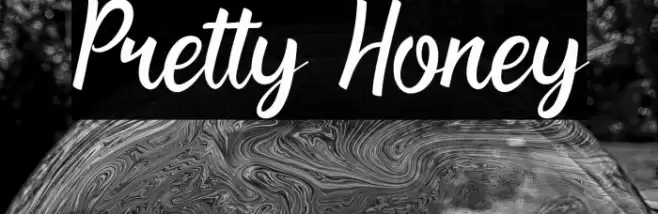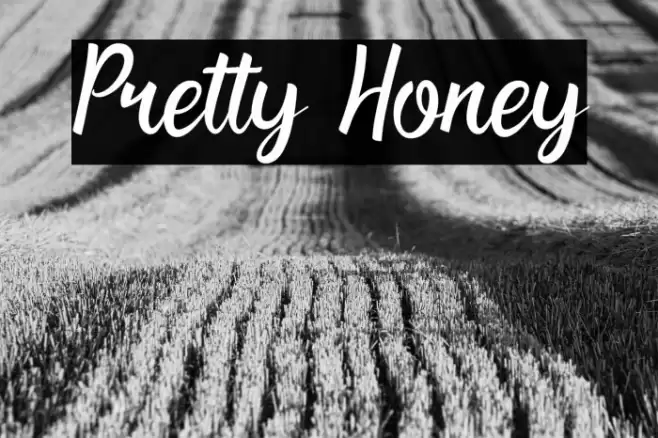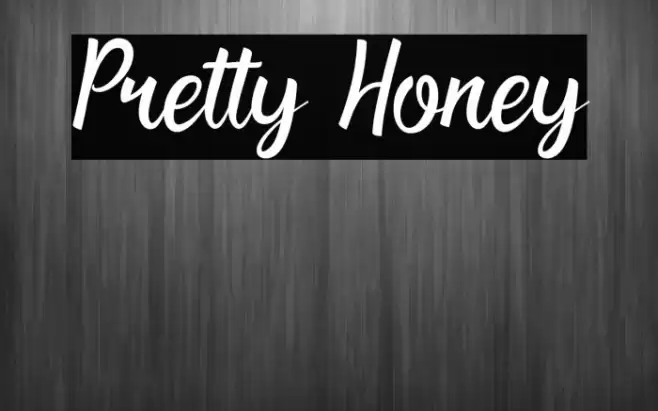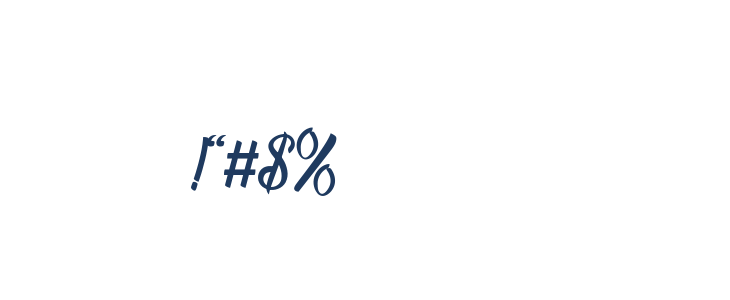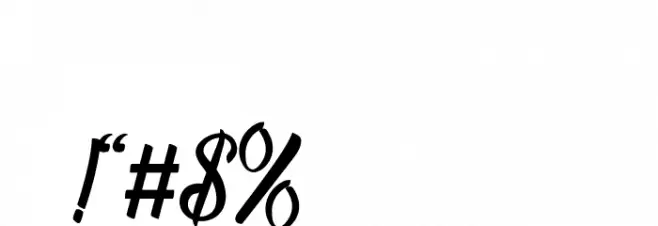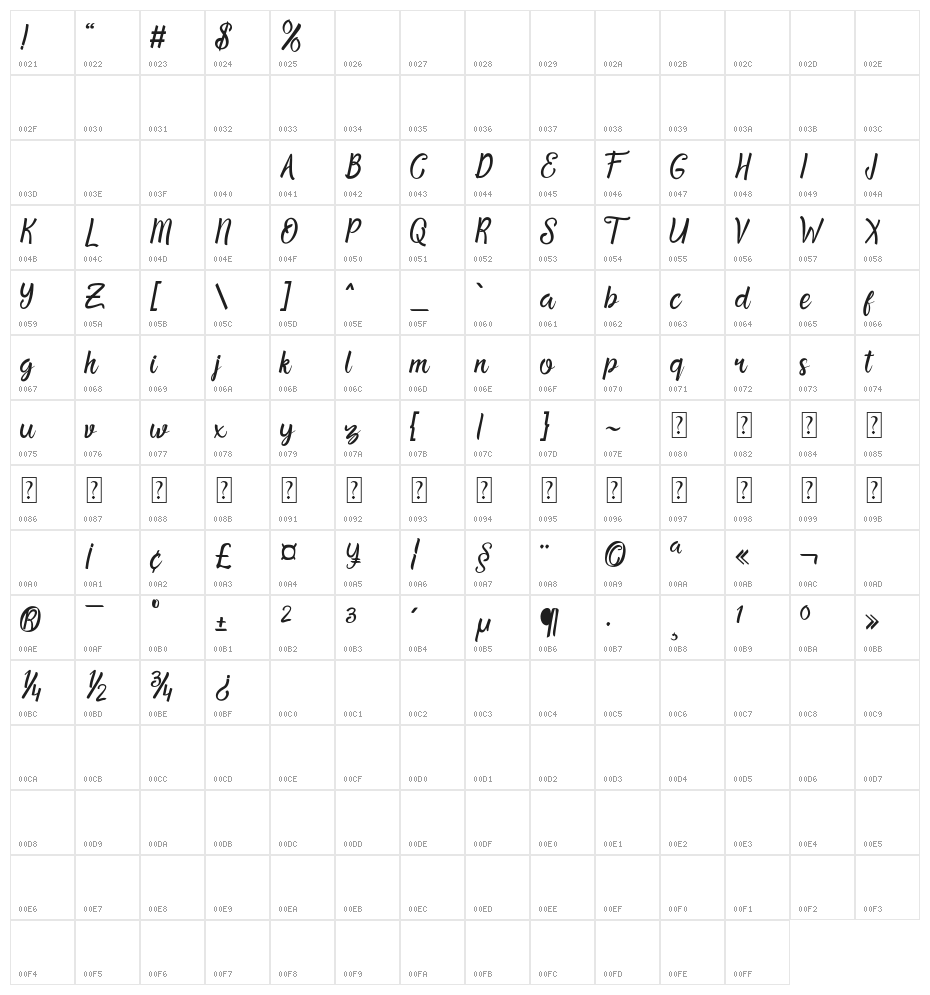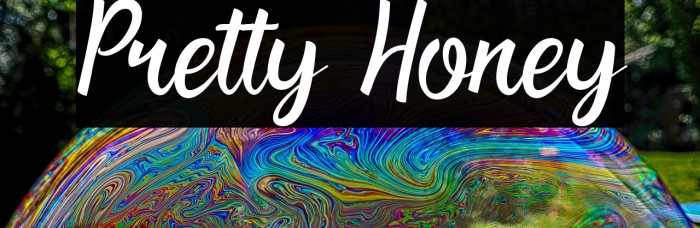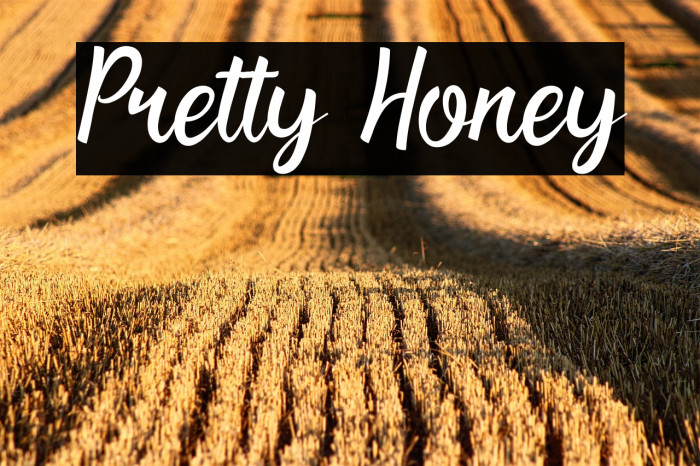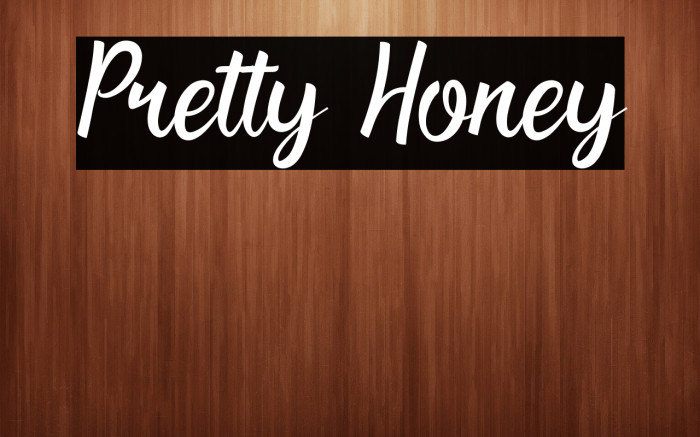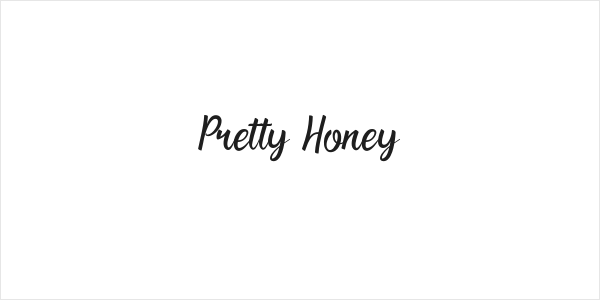
Pretty Honey Font
Pretty Honey Description
This font features a playful and elegant script style, characterized by its flowing, cursive letterforms. The uppercase letters are bold and dynamic, with a slight slant that adds a sense of movement and grace. The lowercase letters maintain a consistent style, with smooth curves and a slightly condensed appearance. The font includes a variety of special characters, enhancing its versatility for creative projects. Its overall design exudes a sense of charm and sophistication, making it suitable for a range of applications.
A playful and elegant script font with flowing, cursive letterforms from Regular fonts.
- Proposed Projects: Ideal for wedding invitations, greeting cards, branding, and logo design.
- Use Case: Logos, Invitations, Greeting Cards